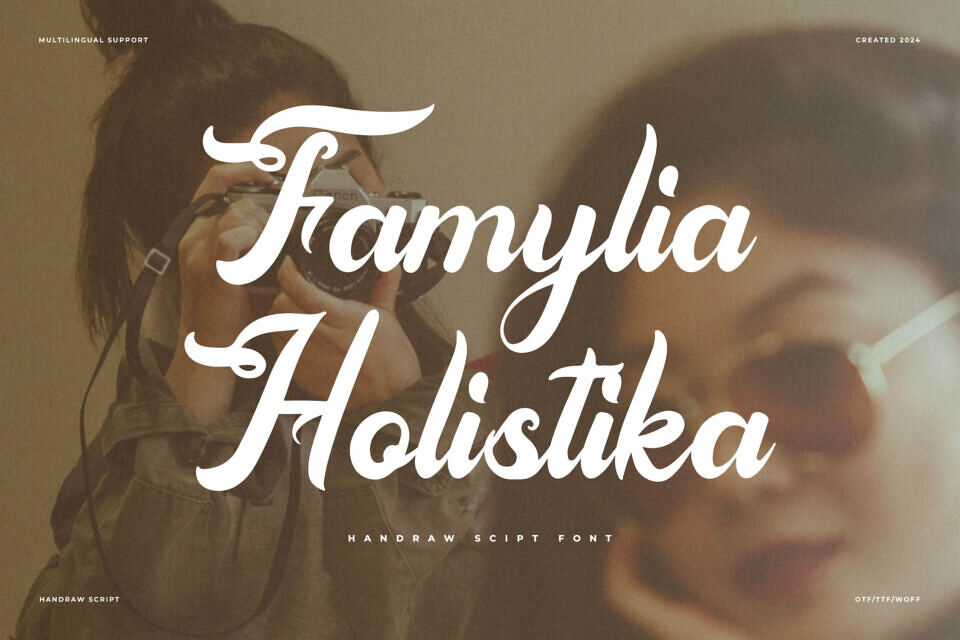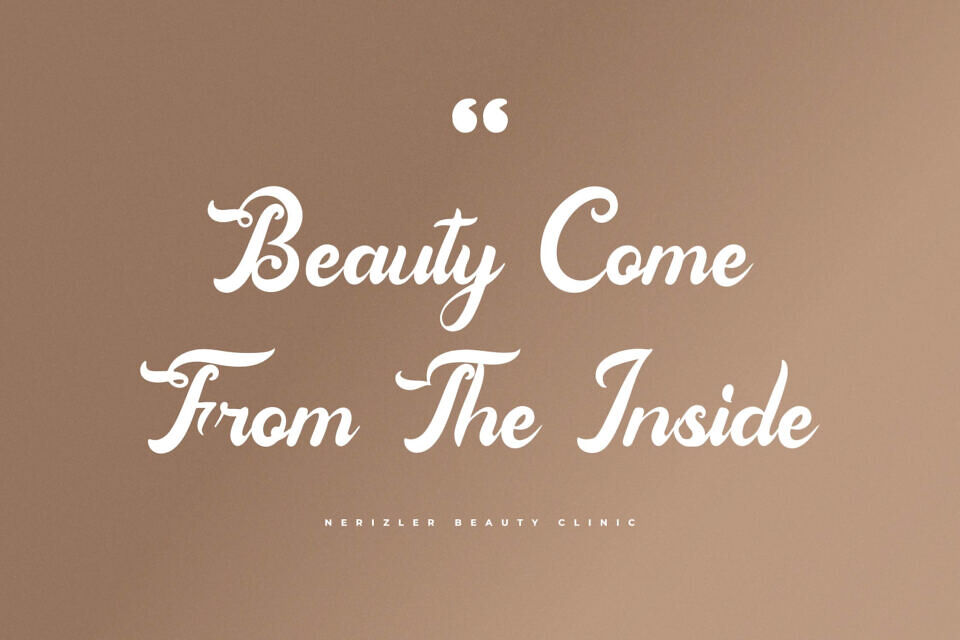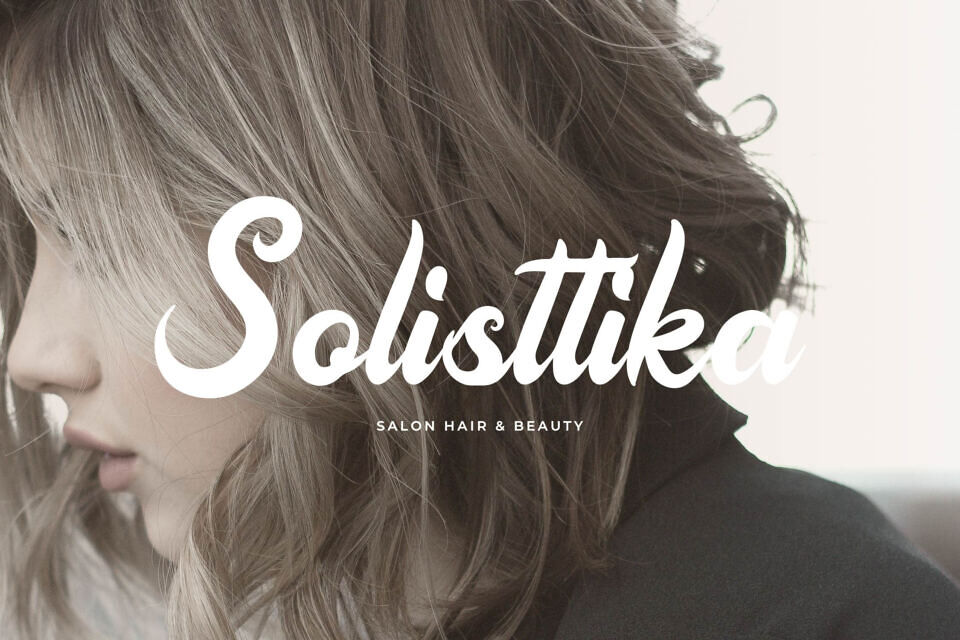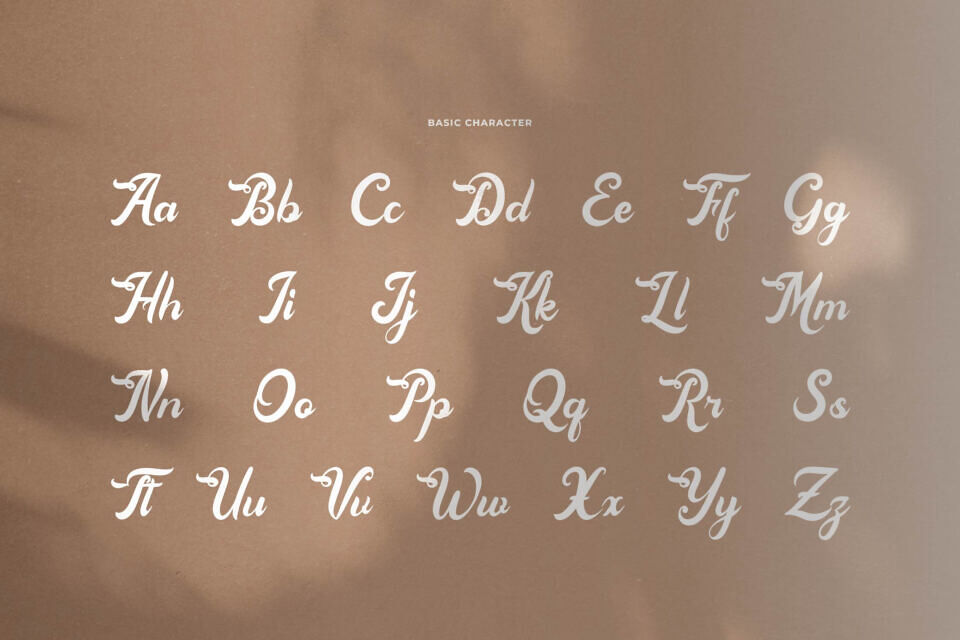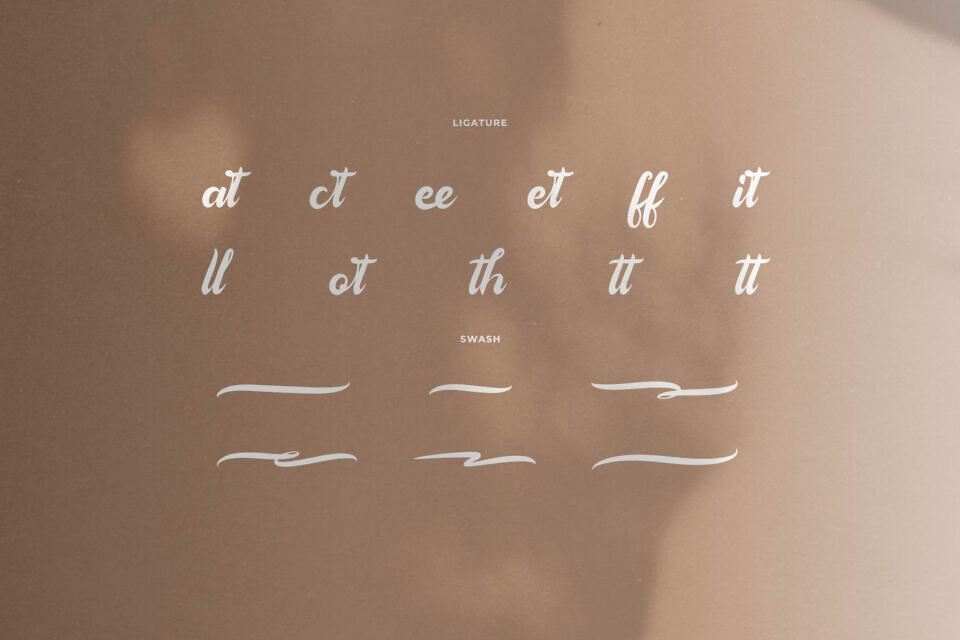
Famylia Holistika Font
Famylia Holistika is a hand-drawn script font with a warm and personal touch. The letters are designed to look like they were carefully written by hand, giving them a natural and friendly feel. Perfect for projects that need a cozy and unique look, like invitations, cards, or creative designs.